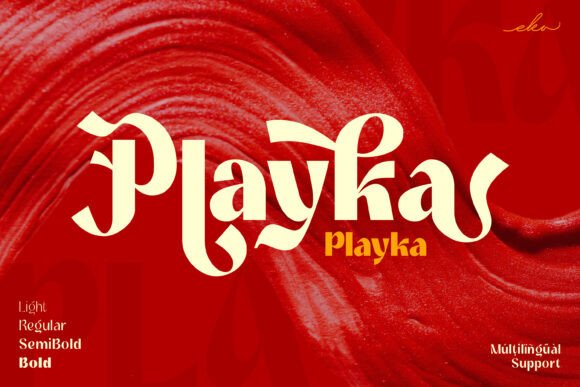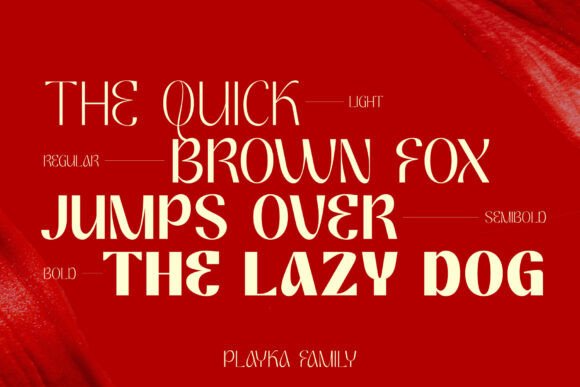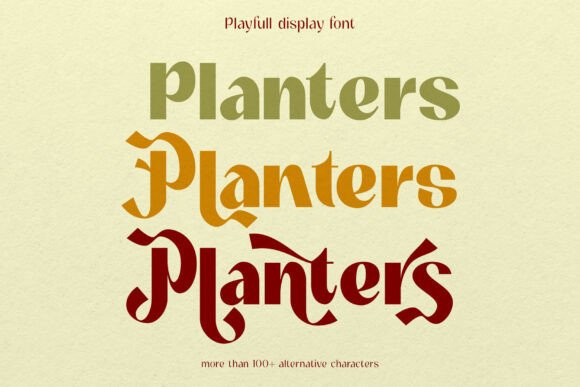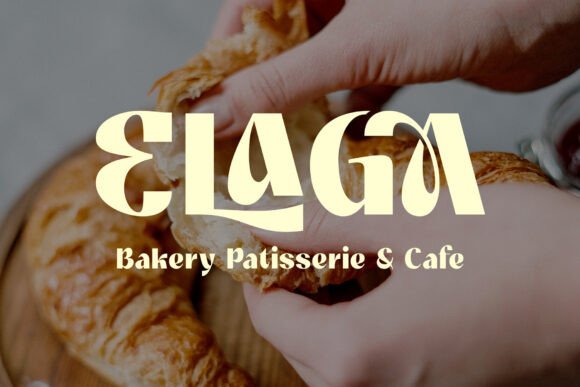
Playka Font: A Unique Display Font for Playful Logo Design
About the Playka Font
The Playka Font offers a perfect balance of form and function for your design needs. Playka is a playful display font with unique character shapes and four weights, from Light to Bold. It offers a variety of alternate and ligature characters, crafted to make your typography stand out with style. Playka is ideal for a wide range of projects, including logo design, weddings, branding, posters, magazines, labels, merchandise, invitations, presentations, advertising, and more!
Playka’s playful personality shines in headlines, short text blocks, and branding applications where its unique character shapes create a memorable impact. It excels in posters, packaging, and invitations, adding a touch of whimsy and visual interest. However, its distinctive forms are less suitable for body text or UI elements; the unconventional letterforms may hinder readability in longer passages.
Consider pairing Playka with a clean sans-serif like Lato or Open Sans for a balanced contrast, or a classic serif such as Garamond or Merriweather for a sophisticated feel. For a more playful pairing, explore a rounded geometric sans-serif like Futura or a handwritten script font with a similar level of energy.
Its overall aesthetic is best described as bold and friendly, making it a strong choice for brands targeting a younger demographic or projects requiring a vibrant and approachable visual style. Avoid using Playka in contexts demanding high readability or formal settings.